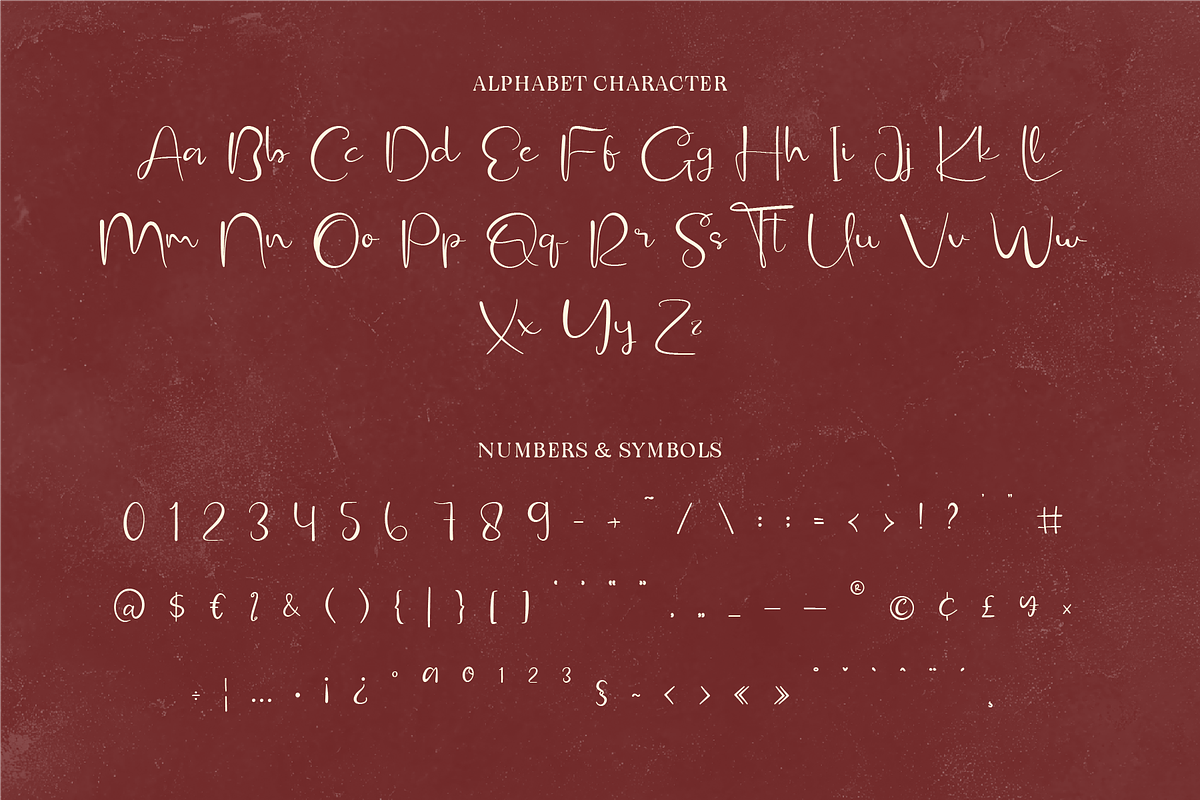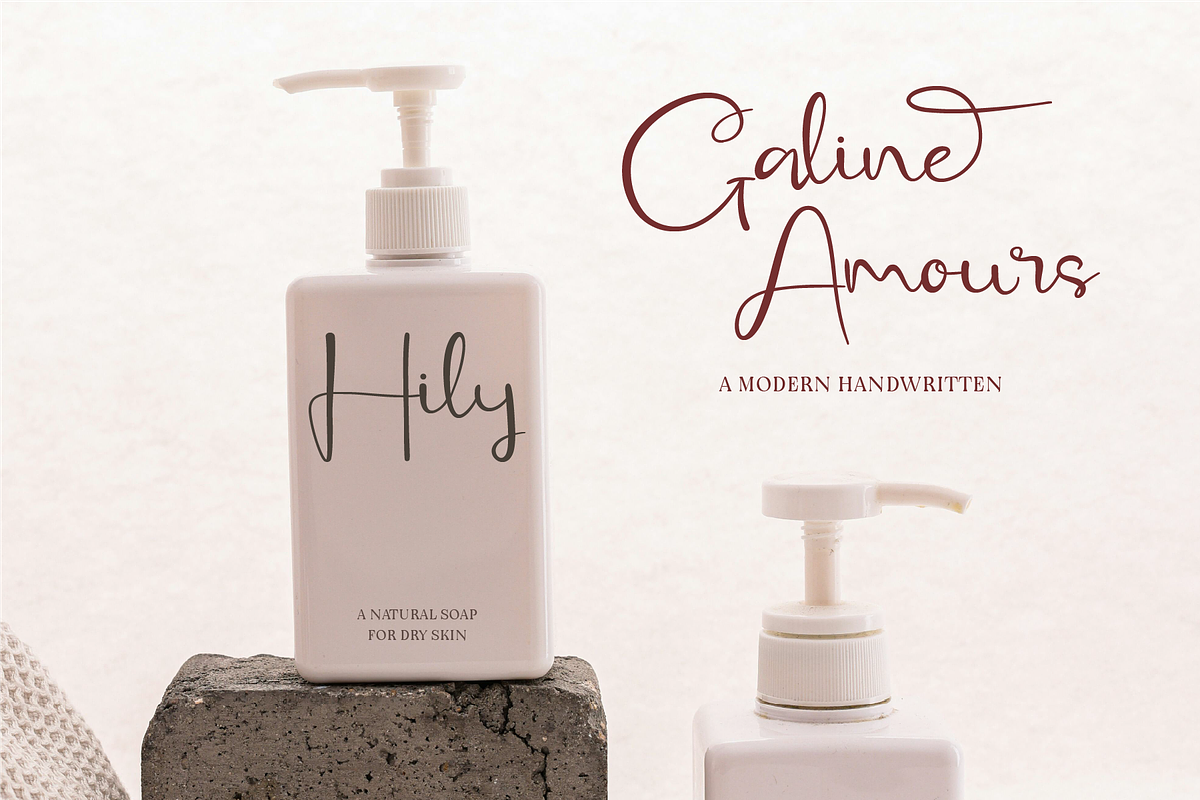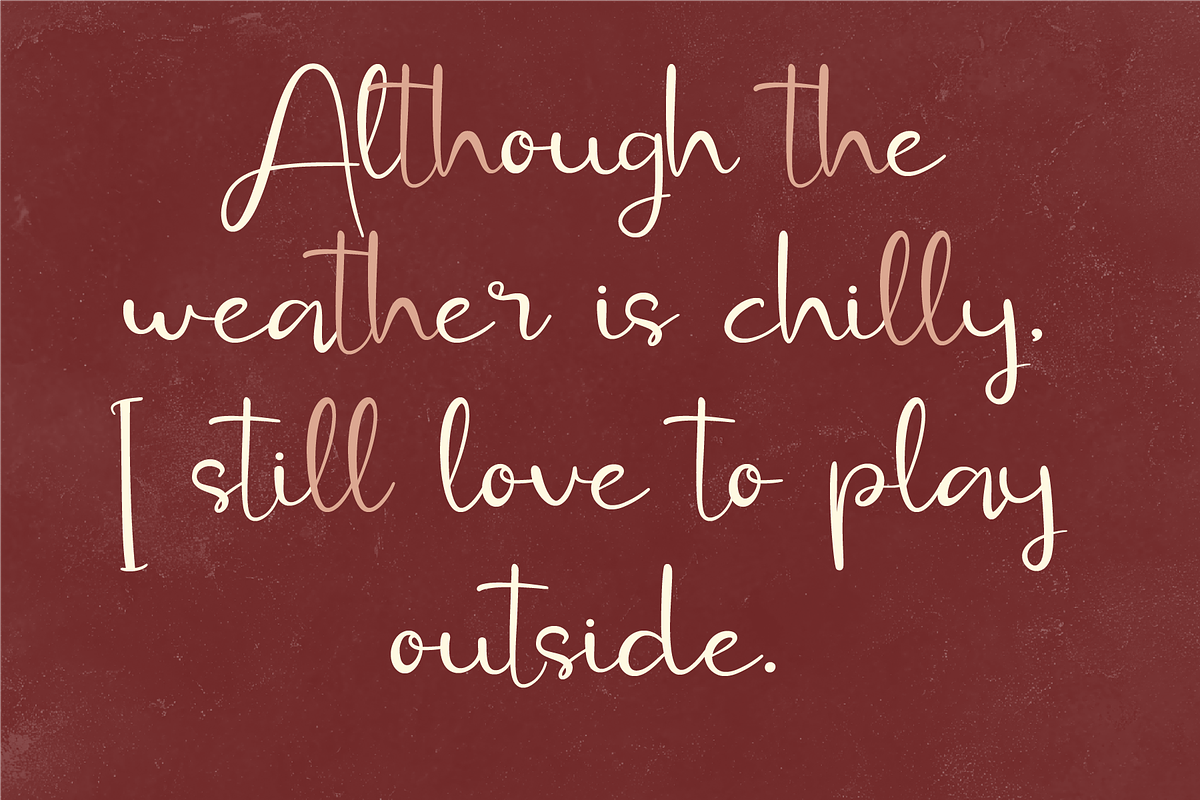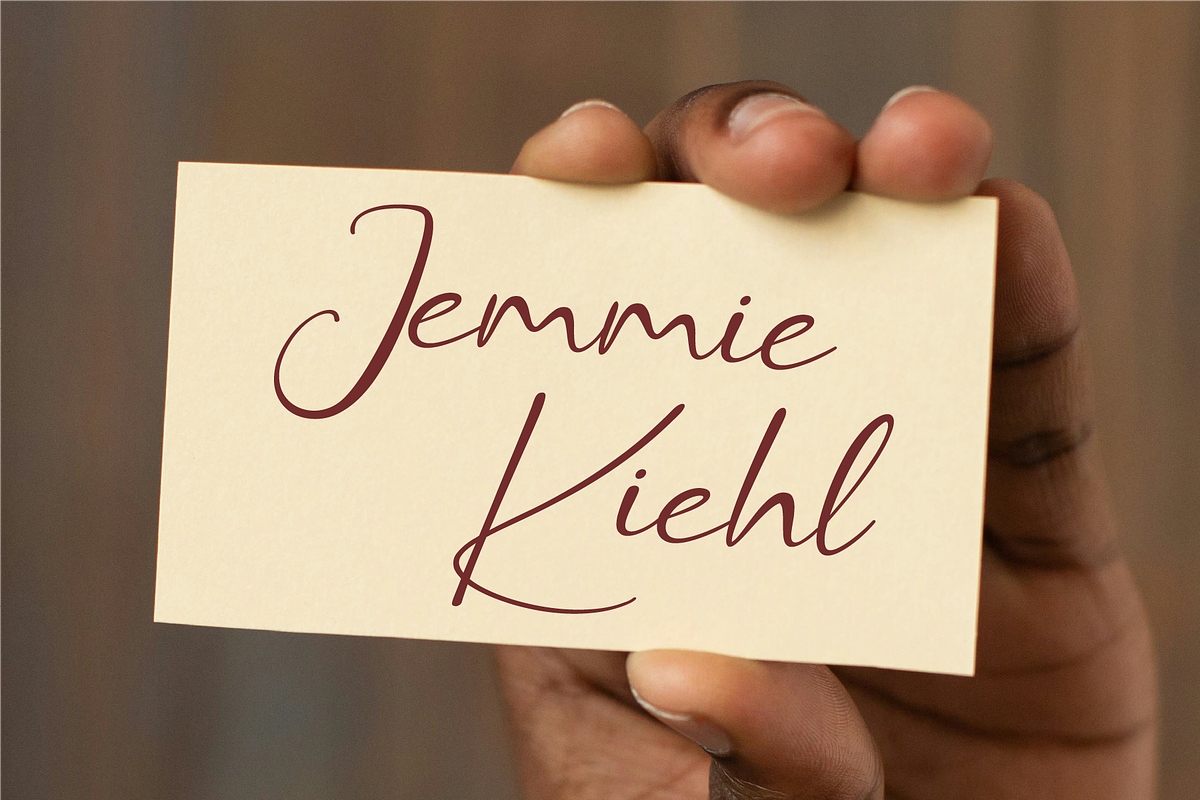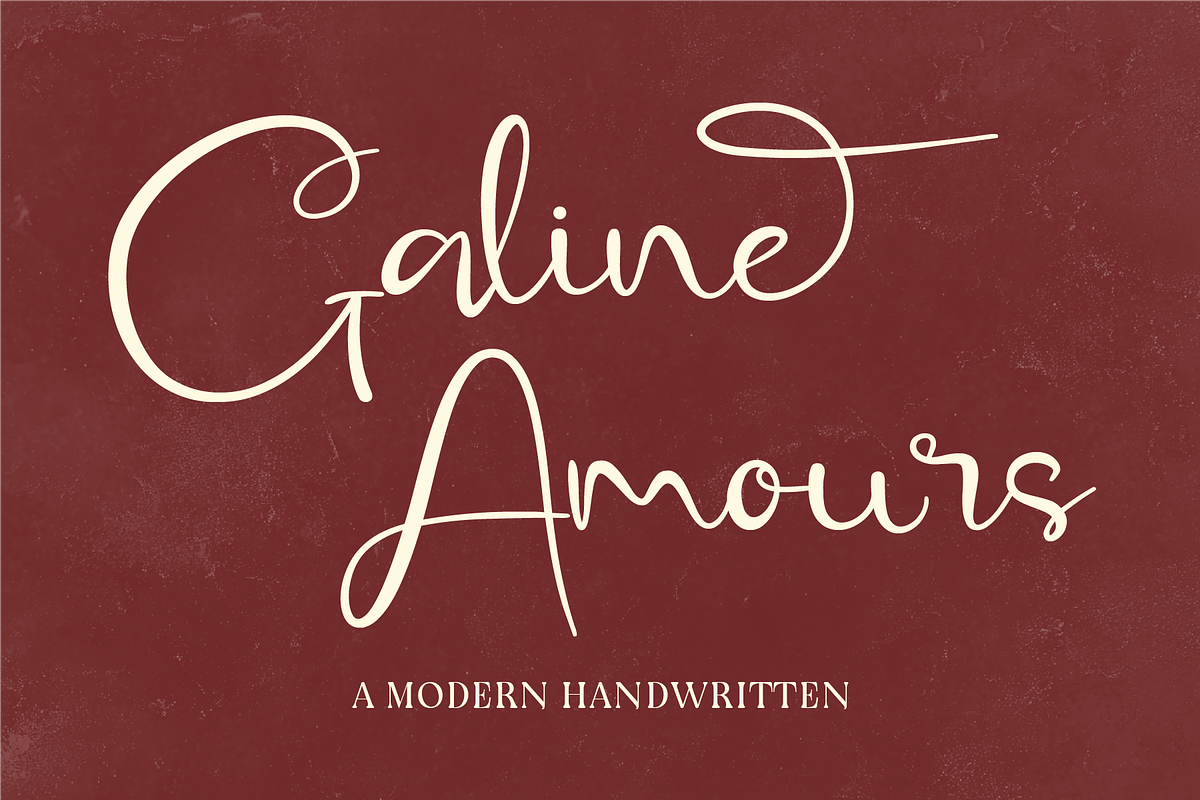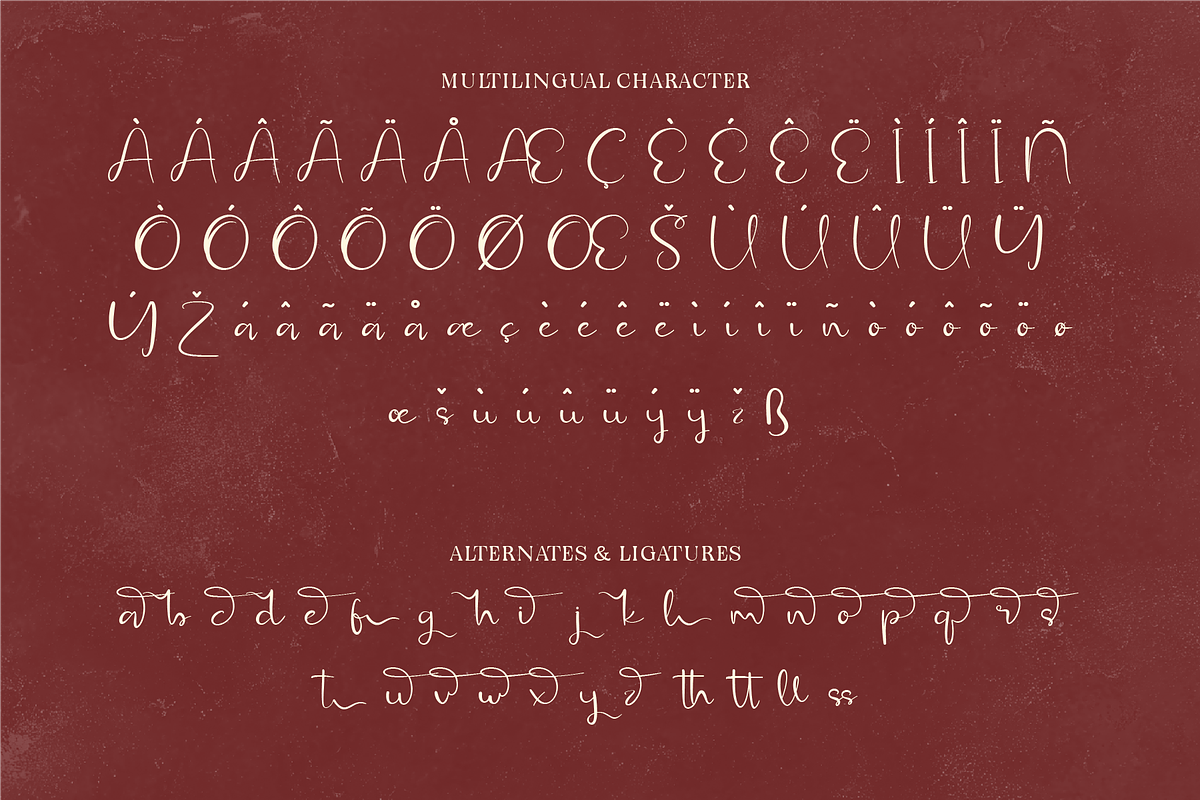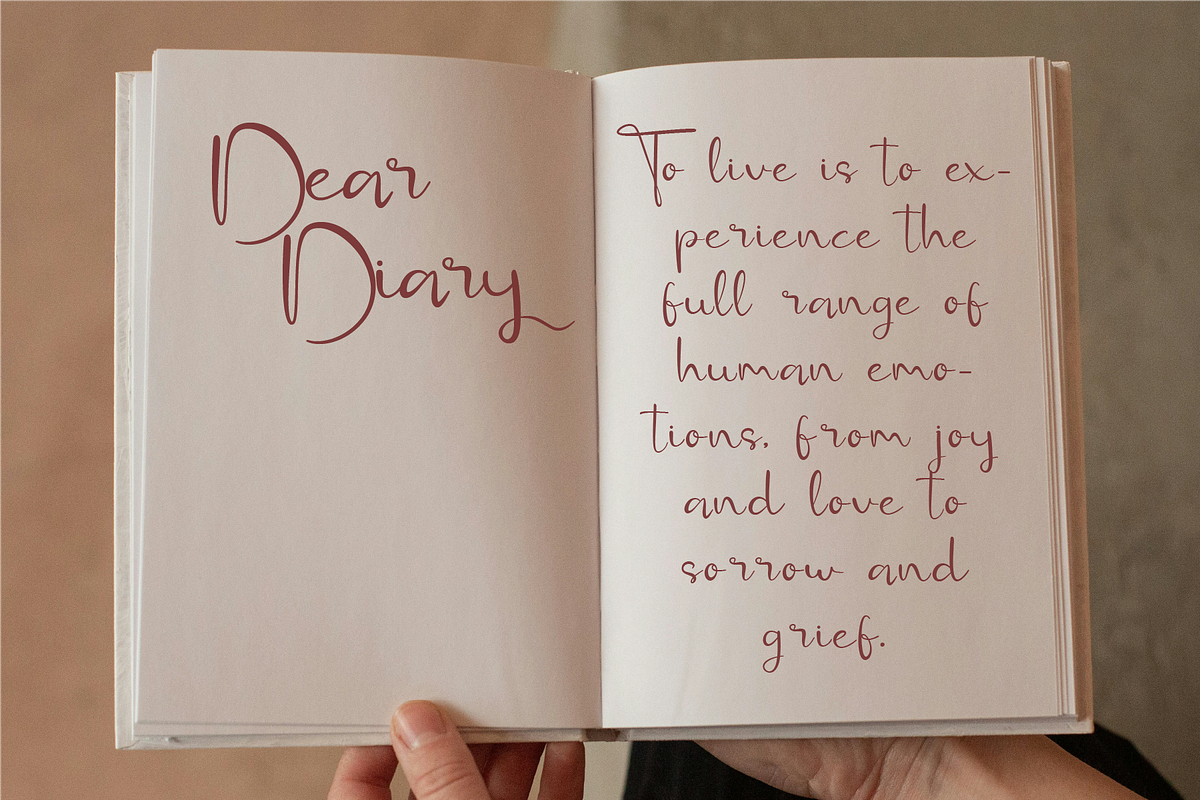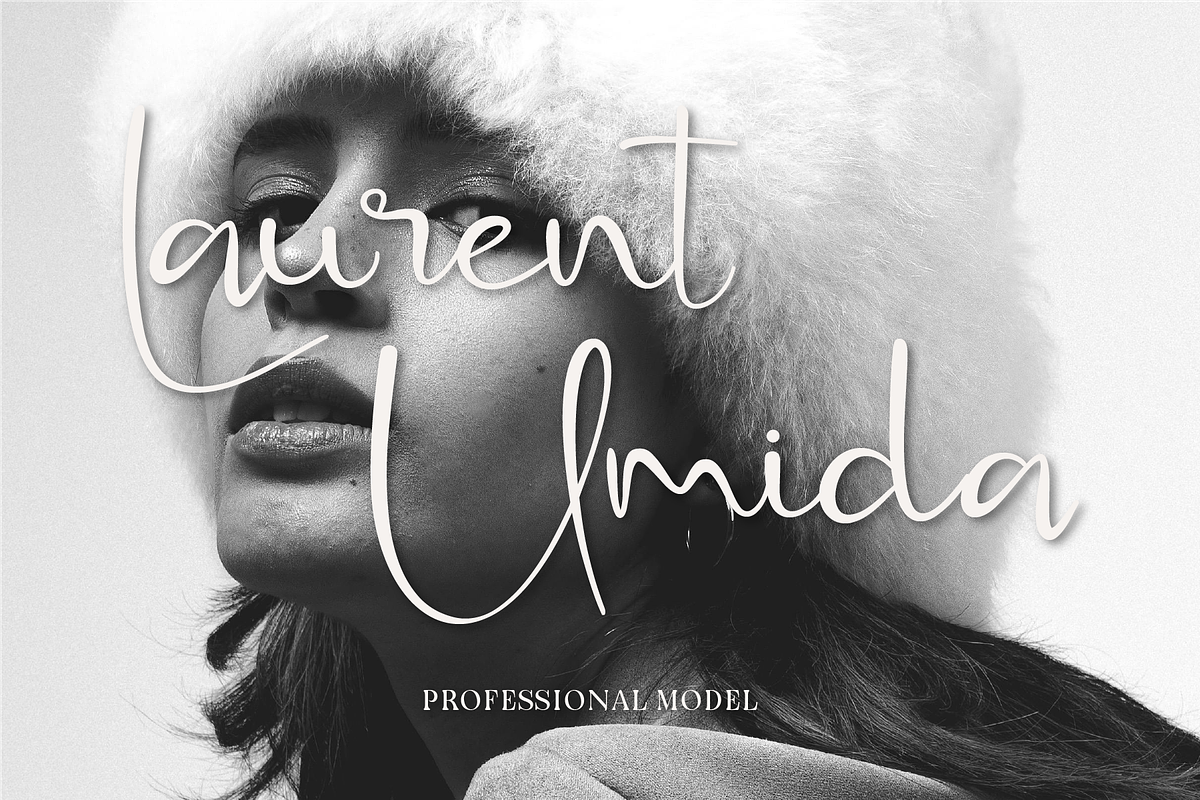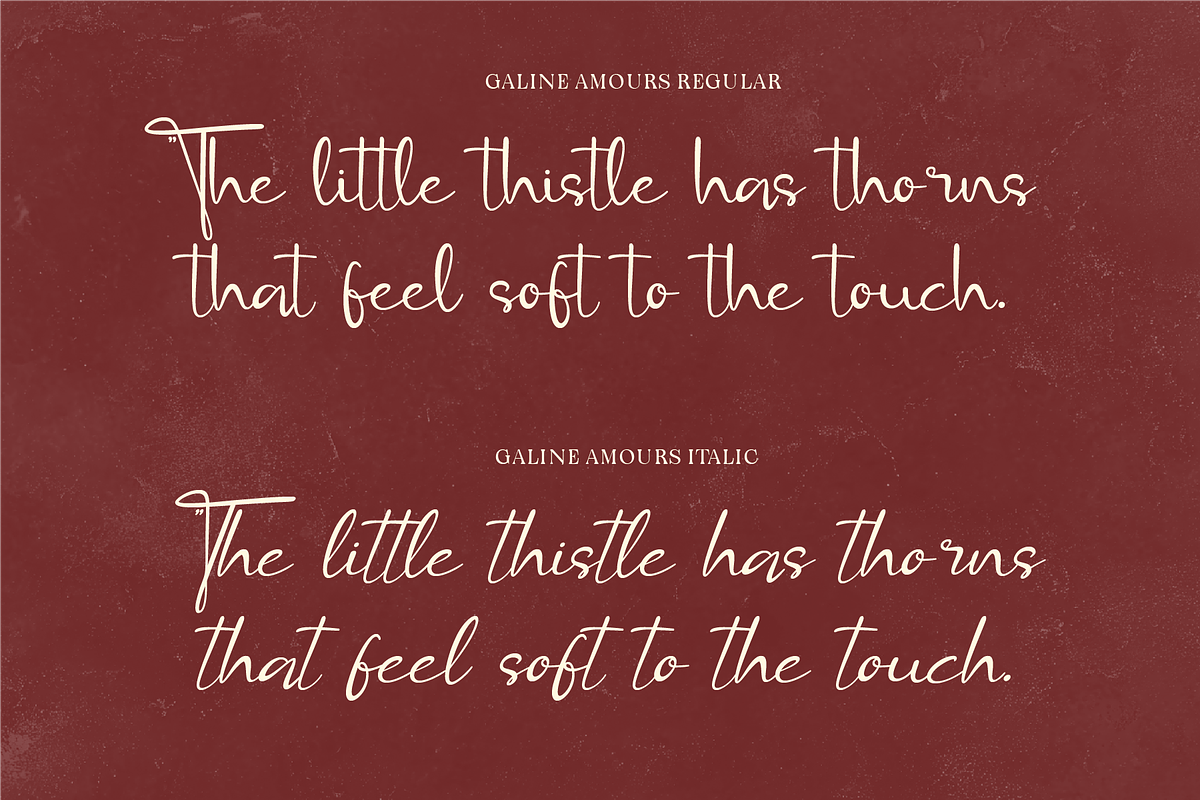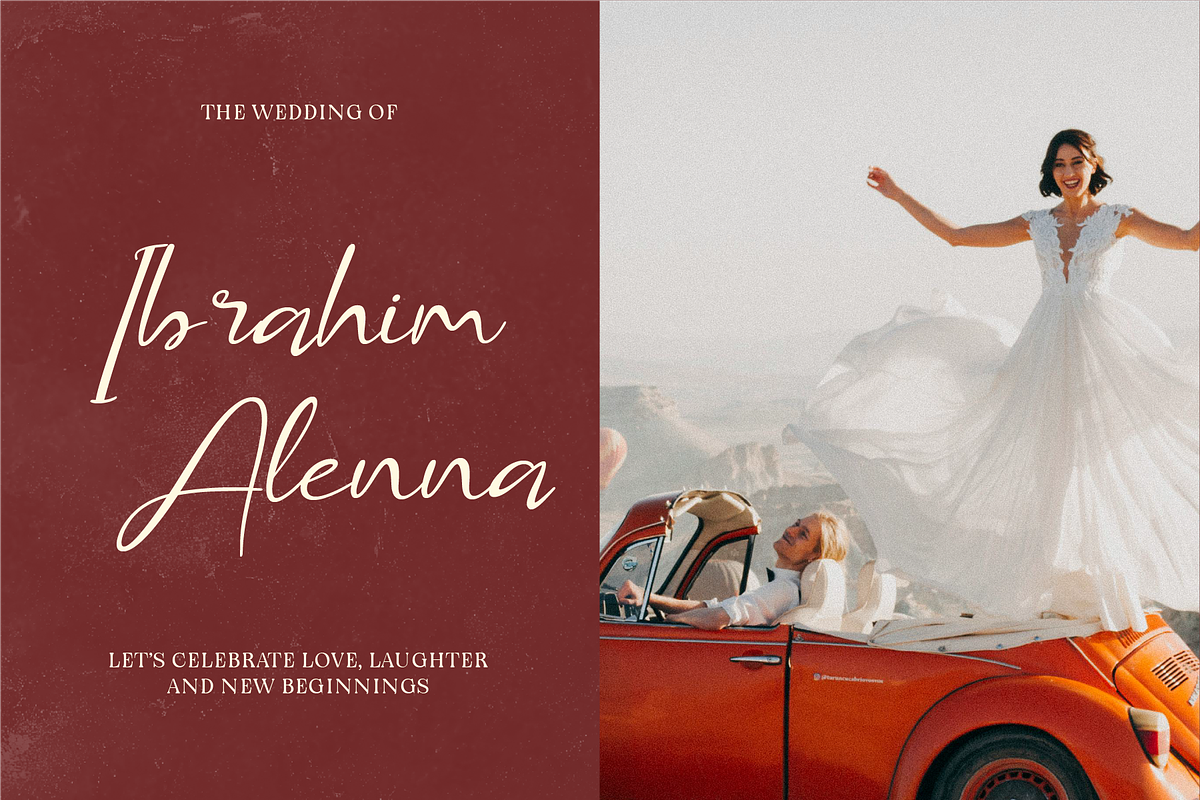
Galine Amours - Modern Handwritten
Galine Amours is a modern handwritten font with a touch of romance and sophistication. Its elegant curves and smooth strokes create an enchanting aesthetic that is perfect for wedding invitations, love notes, branding, and more. This font combines the natural beauty of handwriting with a refined modern style, adding charm and warmth to your designs. Whether you're crafting heartfelt messages or creating timeless designs, Galine Amours is your go-to choice for a classy, handwritten look.
- Standard Character A-Z, a-z, 0-9, Punctuation & symbols
- Regular & Italic Style
- Include Alternates and Ligatures